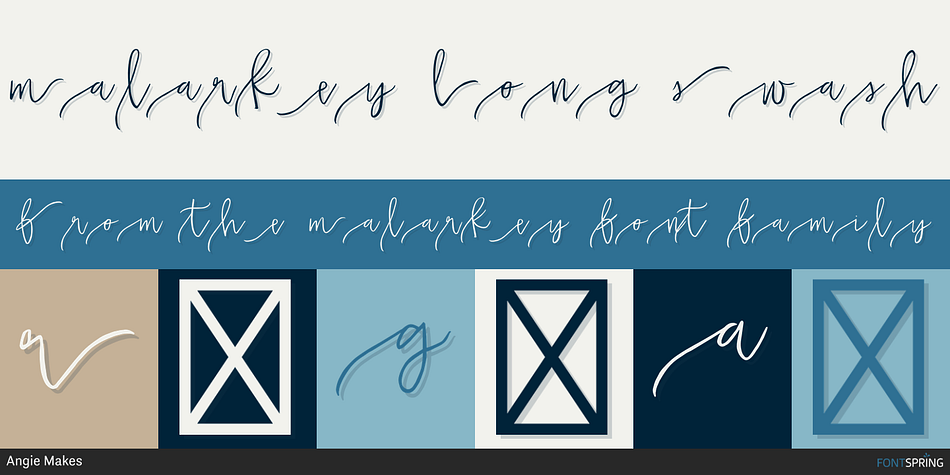
Malarkey Long Swash
Malarkey is a modern calligraphy and dingbat font family. This typeface has six styles and was published by Angie Makes.
Meet Malarkey, a hand painted font with bounce and quirk. Malarkey was inspired by hand brushed, modern calligraphy and features messy, organic letter forms. Swash lovers, eat your heart out. Long, looped, swirl, and short swash fonts are included to give your projects a convincing, hand brushed calligraphy look.
To add the swashes to your words, select your desired swash font and type lowercase a-z for the beginning swashes. For ending, terminal swashes, type uppercase A-Z. Here is a short video of the swashes in action. https://www.youtube.com/watch?v=7bGFD2onq6A&feature=youtu.be